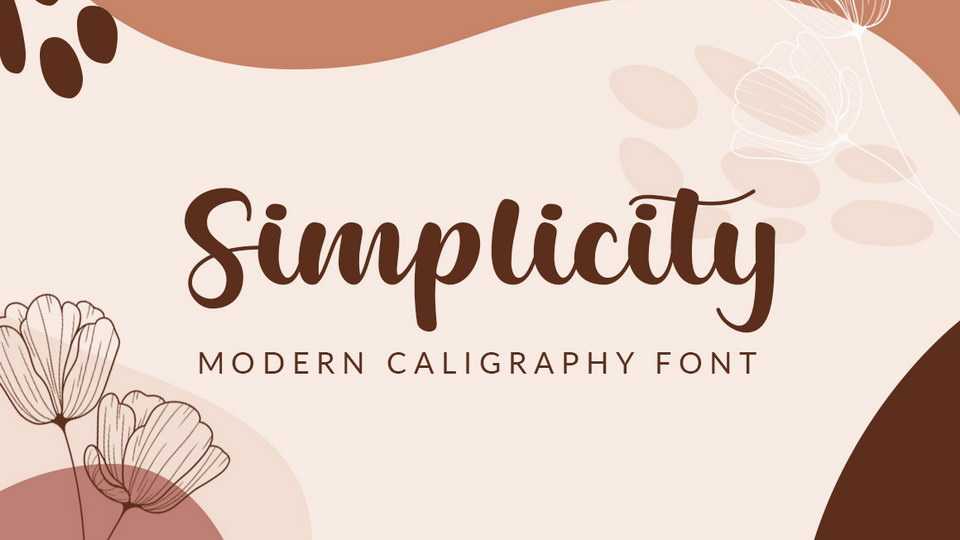
Download Simplicity font, a modern handwritten typeface carefully created with a touch of elegance. Simplicity features an incredibly casual style, while still keeping a friendly feel.